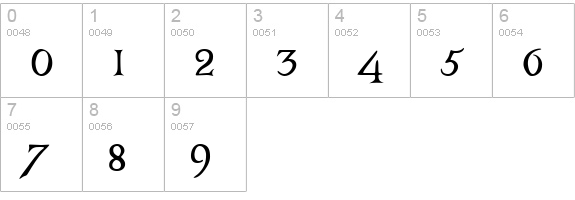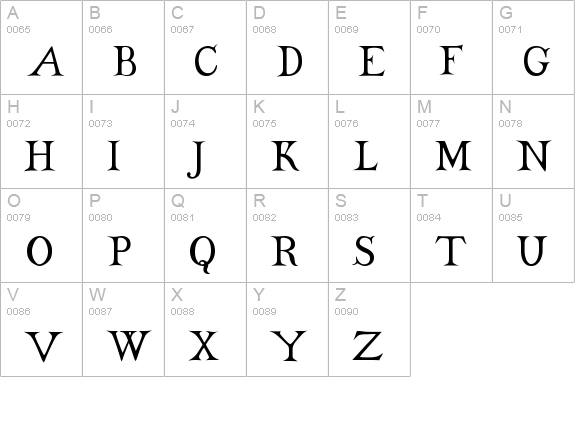
CastineBETA Font Details
CastineBETA font is a stylish and modern typeface that exudes elegance and sophistication. Its sleek lines and sharp angles make it perfect for a wide range of design projects, from logos to posters to branding materials. This font strikes the perfect balance between professionalism and creativity, making it a versatile choice for designers looking to make a statement. One of the best things about CastineBETA font is that it is completely free to download. Yes, you read that right! You can easily access this stunning font at FontsMarket.com without any cost. Whether you are a seasoned designer or just starting out, CastineBETA font is a fantastic addition to your font library. With its timeless appeal and modern aesthetic, CastineBETA font is sure to elevate your designs and leave a lasting impression on your audience. Download it today and let your creativity soar!